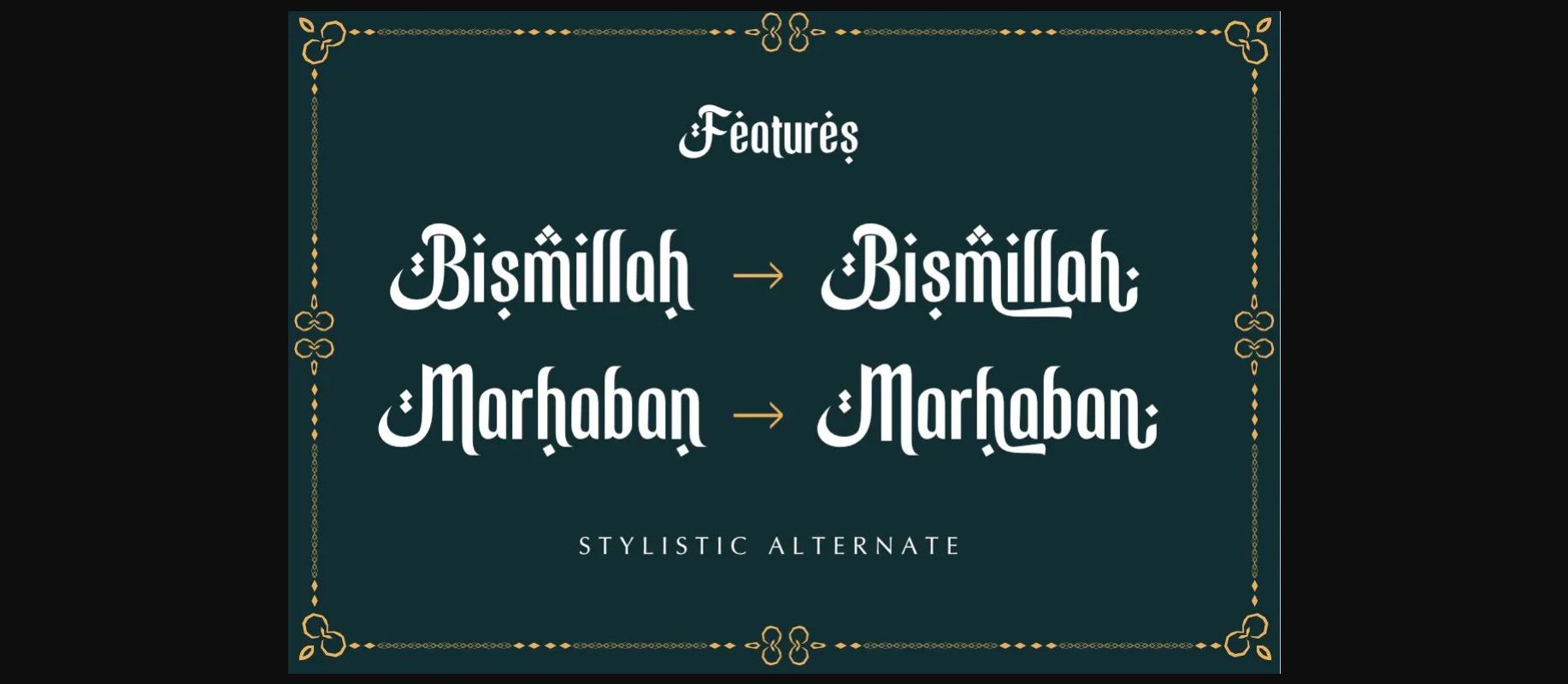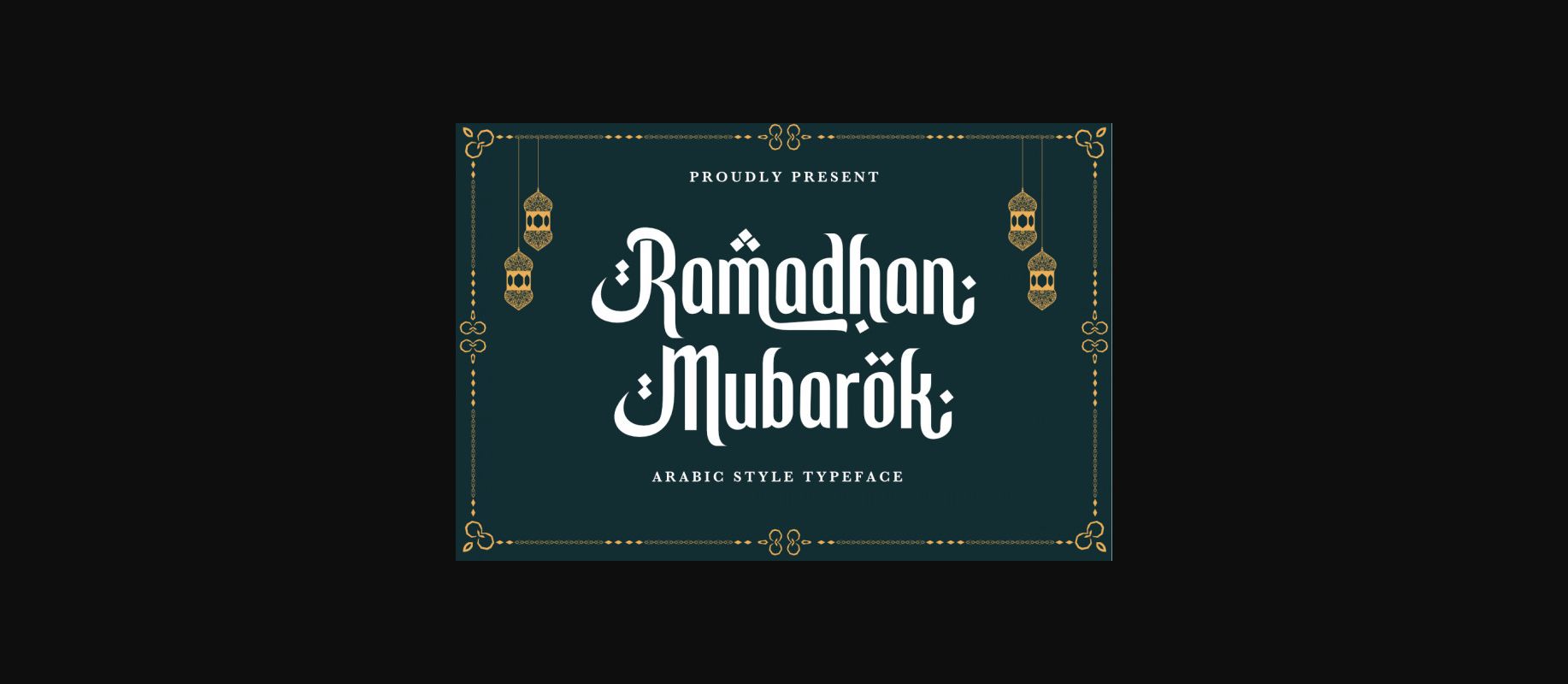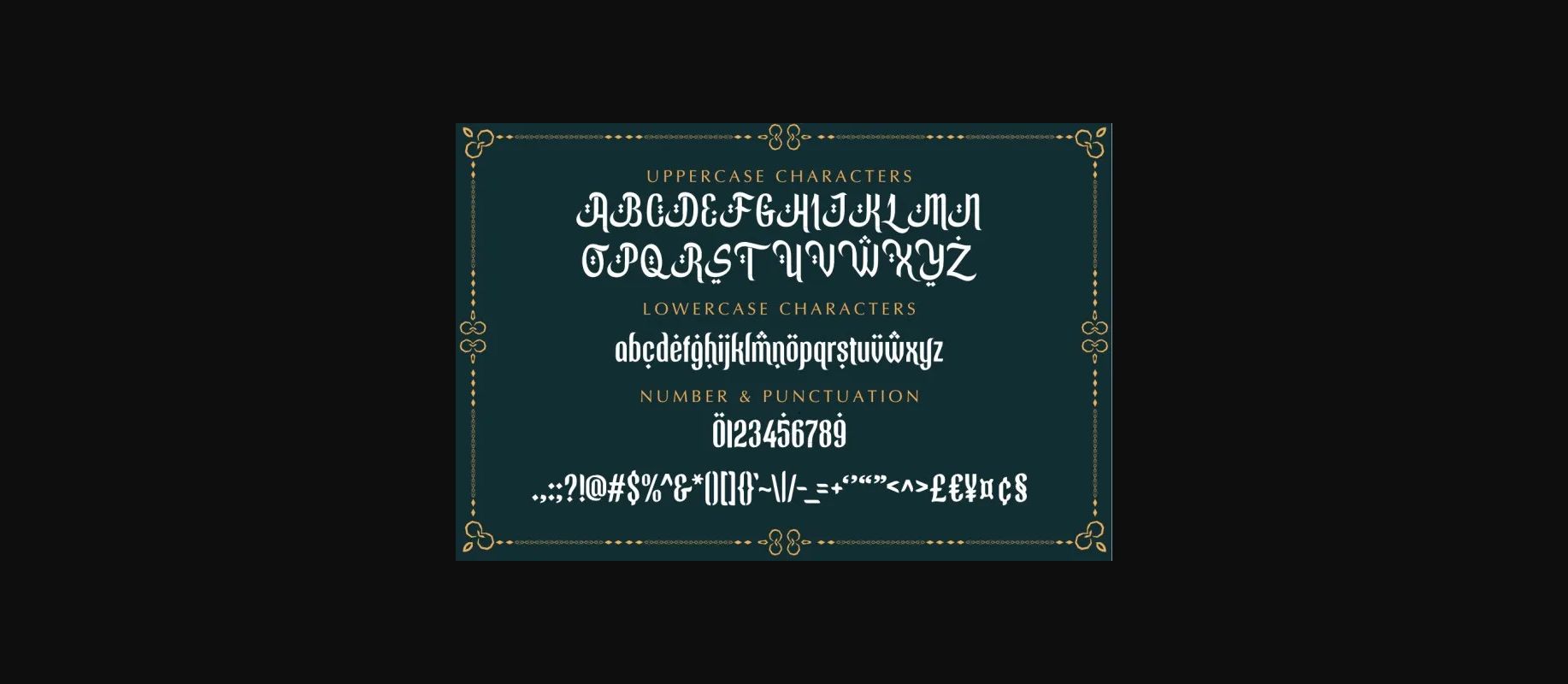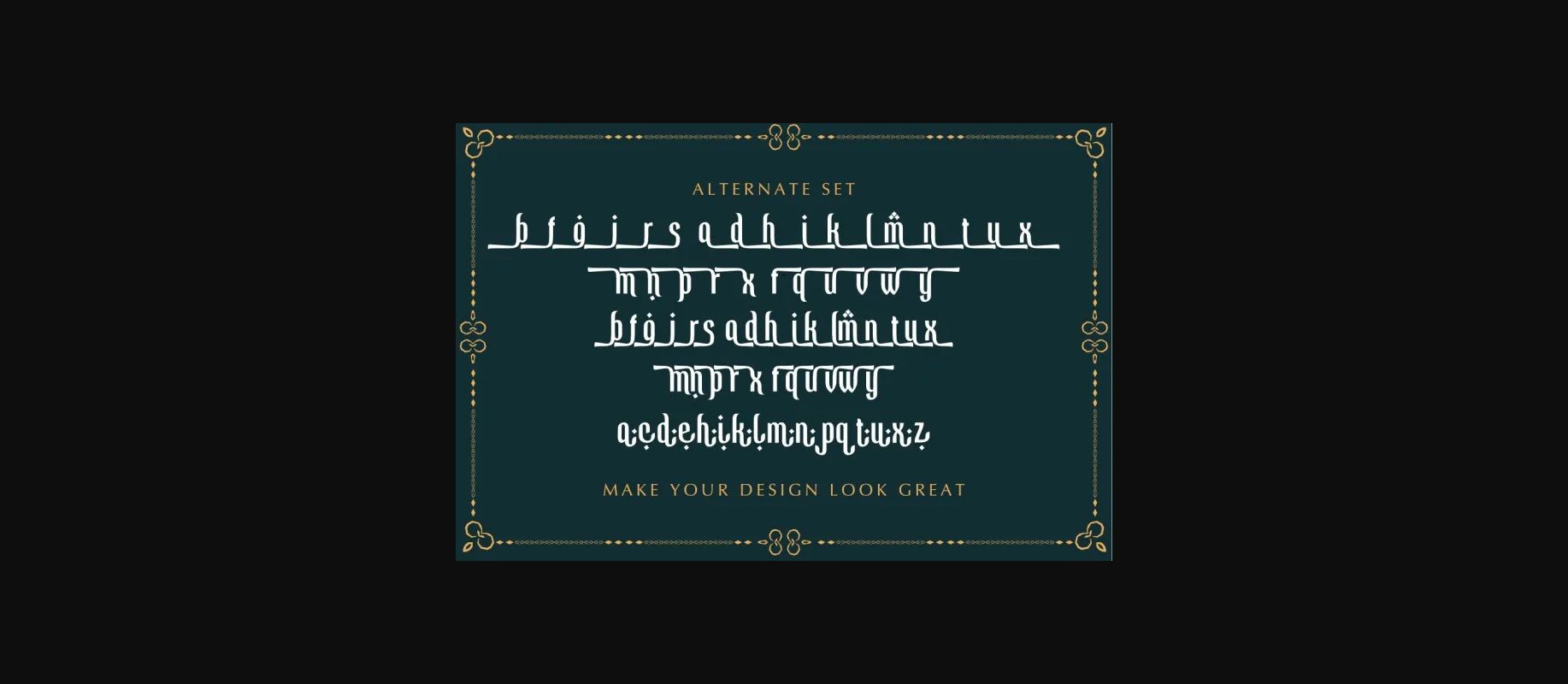
About Ramadhan Mubarok Font
Ramadhan Mubarok is a modern and classic typeface that has a unique style & distinctive look. This typeface is perfect for an elegant & luxury logo, book or movie title design, fashion brand, magazine, clothes, lettering, quotes, and so much more.